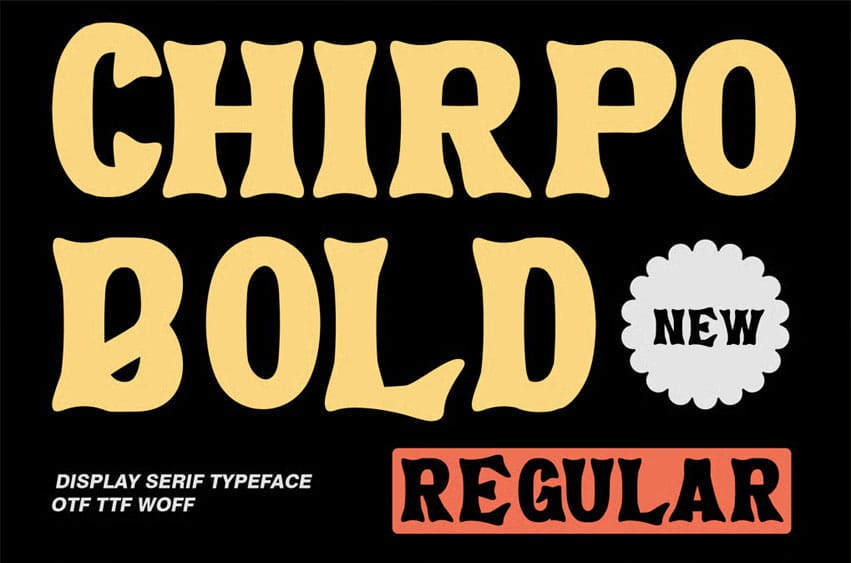
Chirpo Bold Font Is a playful and lively font designed to bring a sense of fun and whimsy to any project.
Its rounded edges and bold, bouncy shapes create a joyful and friendly appearance, making it perfect for designs that need to feel approachable and full of energy.